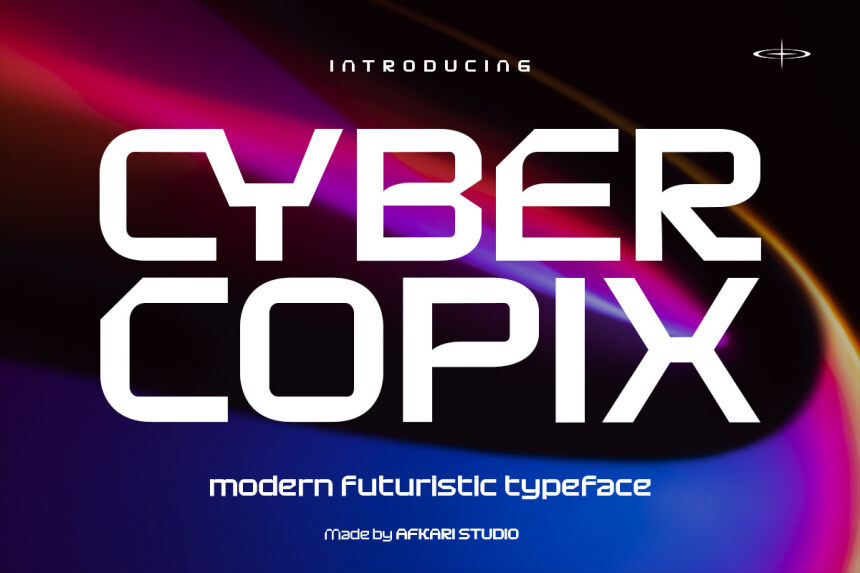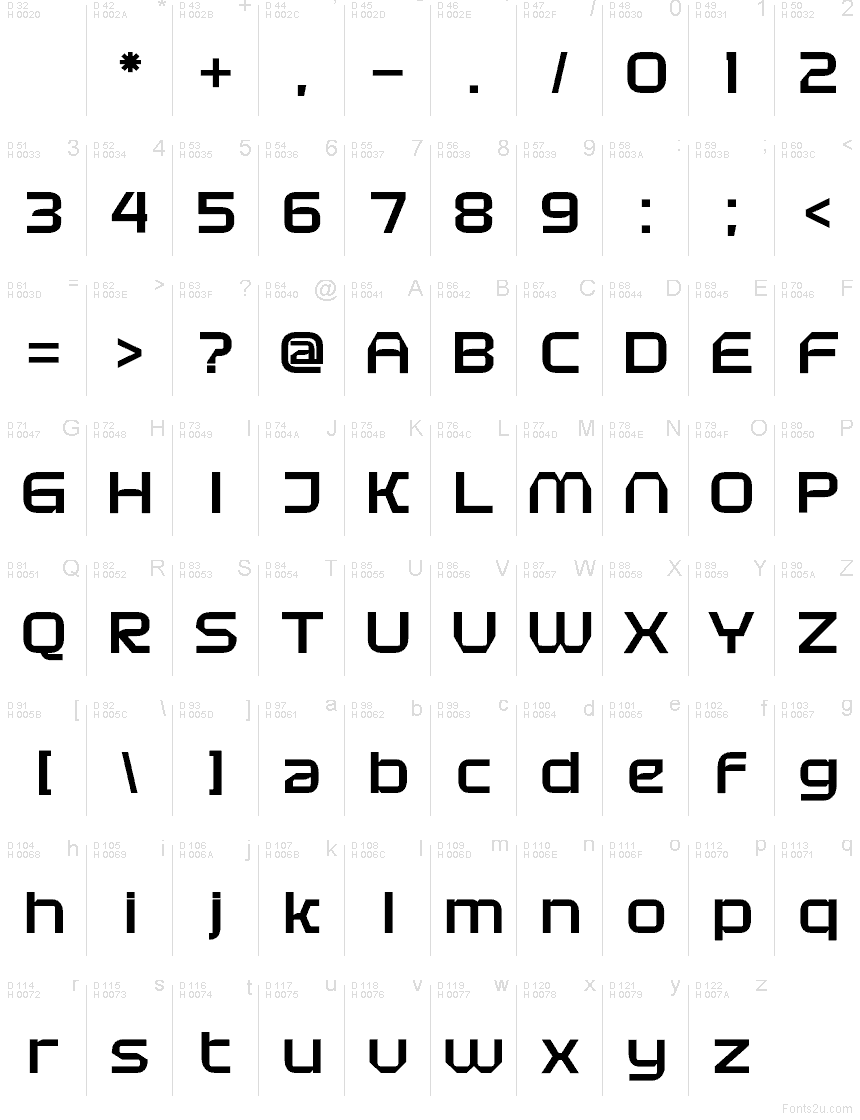
Cyber Copix Bold by Cyber Kopix of Afkari Studio is a free futuristic display font with a sleek techno voice. The letters lean on squared curves, clipped joins, and wide, open shapes that feel borrowed from interface graphics and sci-fi logotypes rather than from conventional sans serif lettering.
It fits best where the title does the visual work: gaming posters, music artwork, tech branding, streaming overlays, and title cards, with room to shine in short cover lines too. As a free font, it suits projects that want a clean cyber mood without clutter, especially when a few words need that smooth, machine-drawn rhythm.